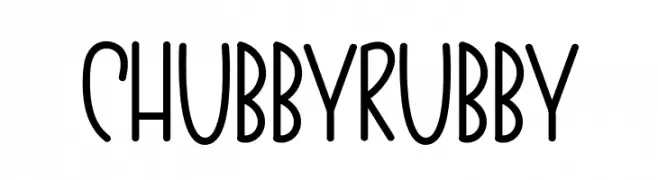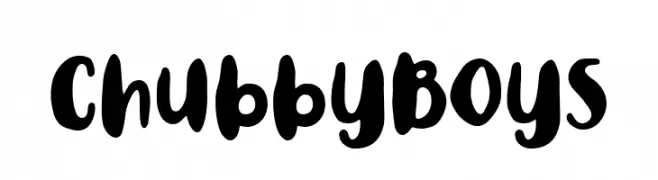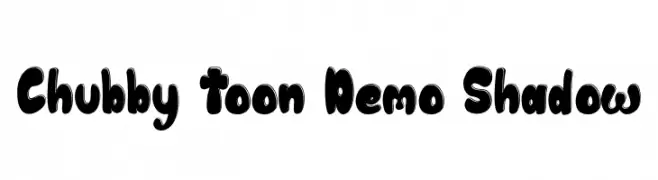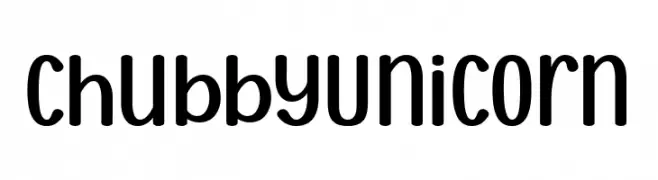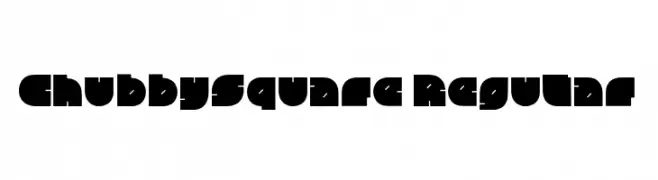
A playful, rounded typeface with bold, smooth curves and a friendly appearance.
A bold, playful font with thick, rounded strokes and a whimsical style.
A bold, playful font with thick, rounded letters and a hand-drawn feel.
A playful, bold font with thick, rounded characters perfect for whimsical designs.
A bold, playful font with rounded characters and a shadow effect, perfect for fun designs.
A playful, rounded font with bold, consistent strokes and a friendly appearance.
A playful, hand-drawn font with rounded, narrow characters and a modern, friendly vibe.
A playful, bubbly font with bold, rounded characters and a cartoon-like style.
A bold, playful font with rounded edges and a modern, cohesive style.